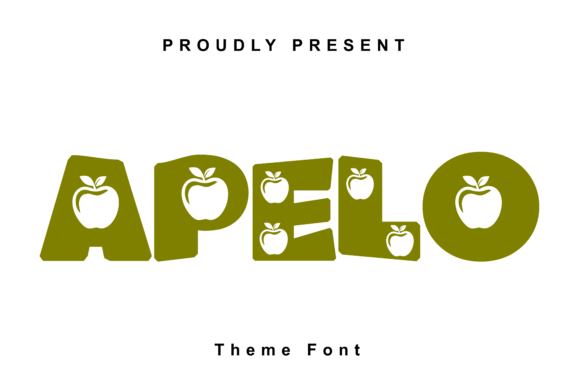
Introducing Apelo Font: Adding a Fun Twist to Your Visuals
Are you looking for a font that can add a touch of playfulness and charm to your branding, packaging, or educational materials? Look no further than Apelo Font. This unique font delivers a fun twist with slightly tilted, blocky letters filled with apple illustrations, making it perfect for food-related branding, classroom visuals, or fun packaging.
A Unique Font with a Playful Personality
Apelo Font is not your average font. Its slightly tilted, blocky letters are filled with adorable apple illustrations, giving it a bold yet charming personality. This font is perfect for businesses or individuals looking to add a touch of whimsy to their visual identity. Whether you’re creating a brand logo, packaging design, or educational materials, Apelo Font is sure to make your visuals stand out.
Perfect for Food-Related Branding
Food-related businesses can greatly benefit from using Apelo Font in their branding. The apple illustrations within the letters evoke a sense of freshness and health, making it an ideal choice for businesses that specialize in organic or healthy food products. Additionally, the playful and charming personality of the font can help create a friendly and approachable brand image.
Examples of Apelo Font in Food-Related Branding
- Logo design for a health food store
- Packaging design for a new line of organic snacks
- Menu design for a trendy cafe
Great for Classroom Visuals
Apelo Font is also perfect for classroom visuals, such as educational posters, worksheets, and presentations. The playful and fun personality of the font can help engage students and make learning more enjoyable. Teachers can use Apelo Font to create visually appealing materials that will capture their students’ attention and make learning more fun.
Examples of Apelo Font in Classroom Visuals
- Educational posters on healthy eating
- Worksheets for a fruit and vegetable theme
- Presentations on nutrition and wellness
Fun Packaging with Apelo Font
Apelo Font is not just limited to branding and educational materials. It can also be used to create fun and eye-catching packaging designs. The bold and playful personality of the font can help your product stand out on store shelves and make it more appealing to customers.
Examples of Apelo Font in Packaging Design
- Label design for a new line of artisanal jams
- Packaging design for a gourmet food gift basket
- Label design for a specialty food product
Combining Boldness with Charm and Personality
Apelo Font combines boldness with charm and personality, making it a unique and versatile font. The slightly tilted, blocky letters give the font a bold and edgy look, while the apple illustrations add a touch of charm and whimsy. This combination makes Apelo Font perfect for businesses or individuals looking to create a visual identity that stands out from the crowd.
Benefits of Using Apelo Font
- Unique and playful personality
- Perfect for food-related branding, classroom visuals, and fun packaging
- Combines boldness with charm and personality
- Easy to read and recognize
Apelo Font is a unique and versatile font that can add a touch of playfulness and charm to your visuals. Its slightly tilted, blocky letters filled with apple illustrations make it perfect for food-related branding, classroom visuals, or fun packaging. With its bold yet charming personality, Apelo Font is sure to make your visuals stand out and leave a lasting impression on your audience.